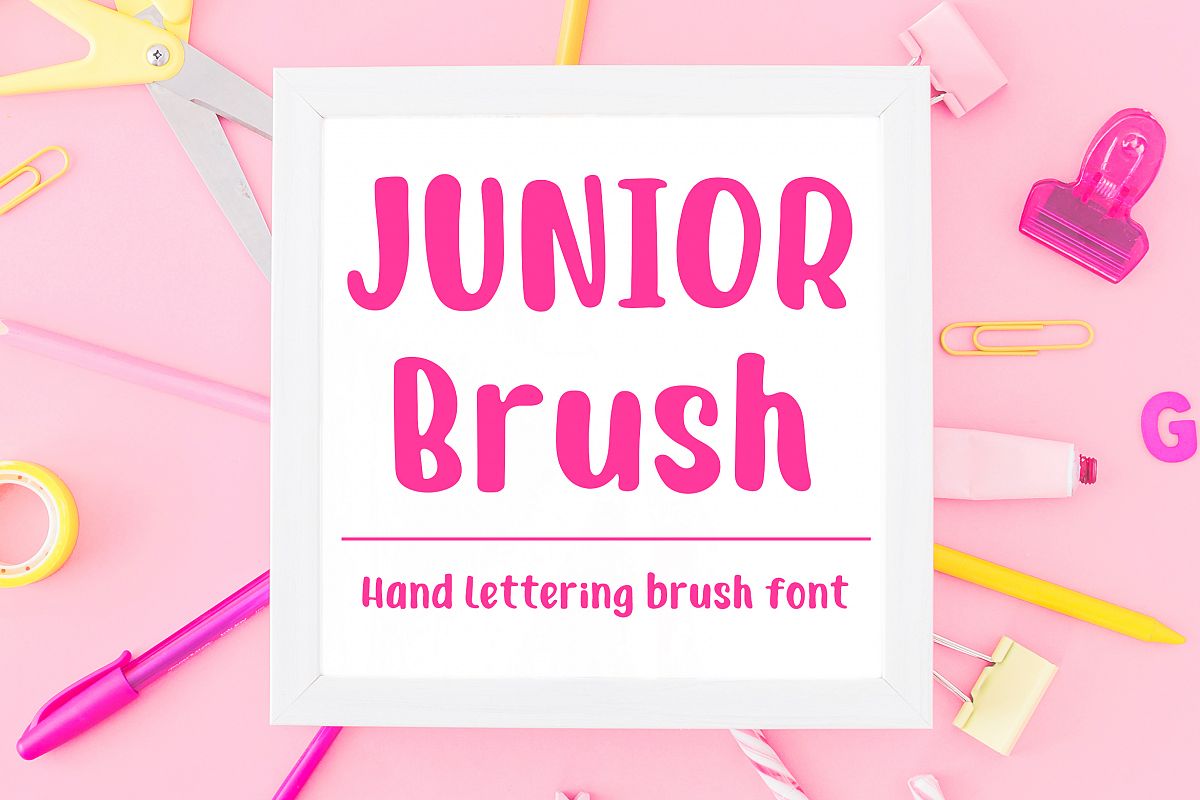
Junior Brush - Handwritten Brush Font
Junior Brush is new Brush Lettering style clean and simple Brush font, Handwritten with Tombow Large Brush Pen,